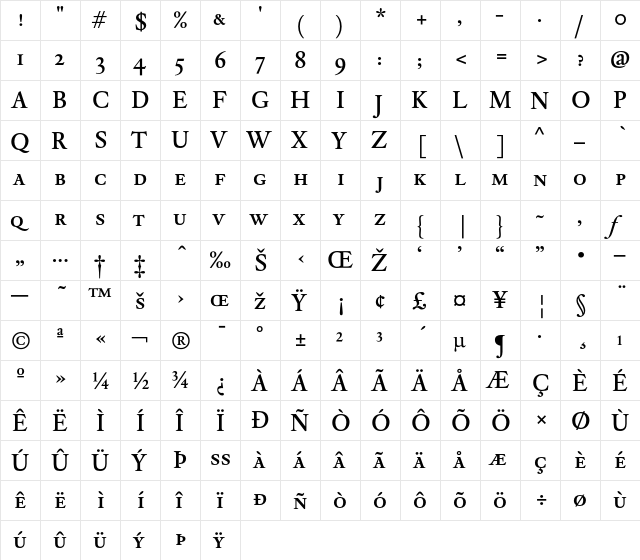
DTLElzevirTCapsMedium Regular
Design Context for DTLElzevirTCapsMedium Typeface
DTLElzevirTCapsMedium is a composed and adaptable typeface that performs quietly and consistently across a wide range of design contexts.